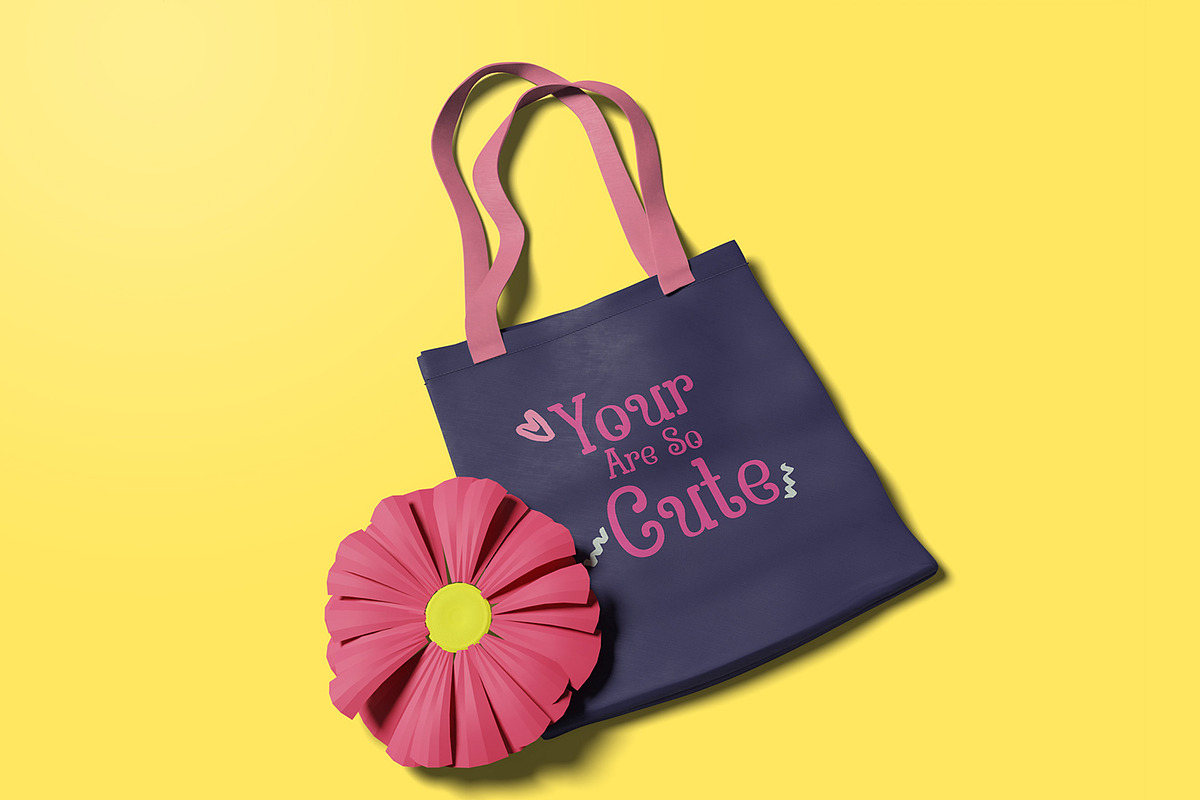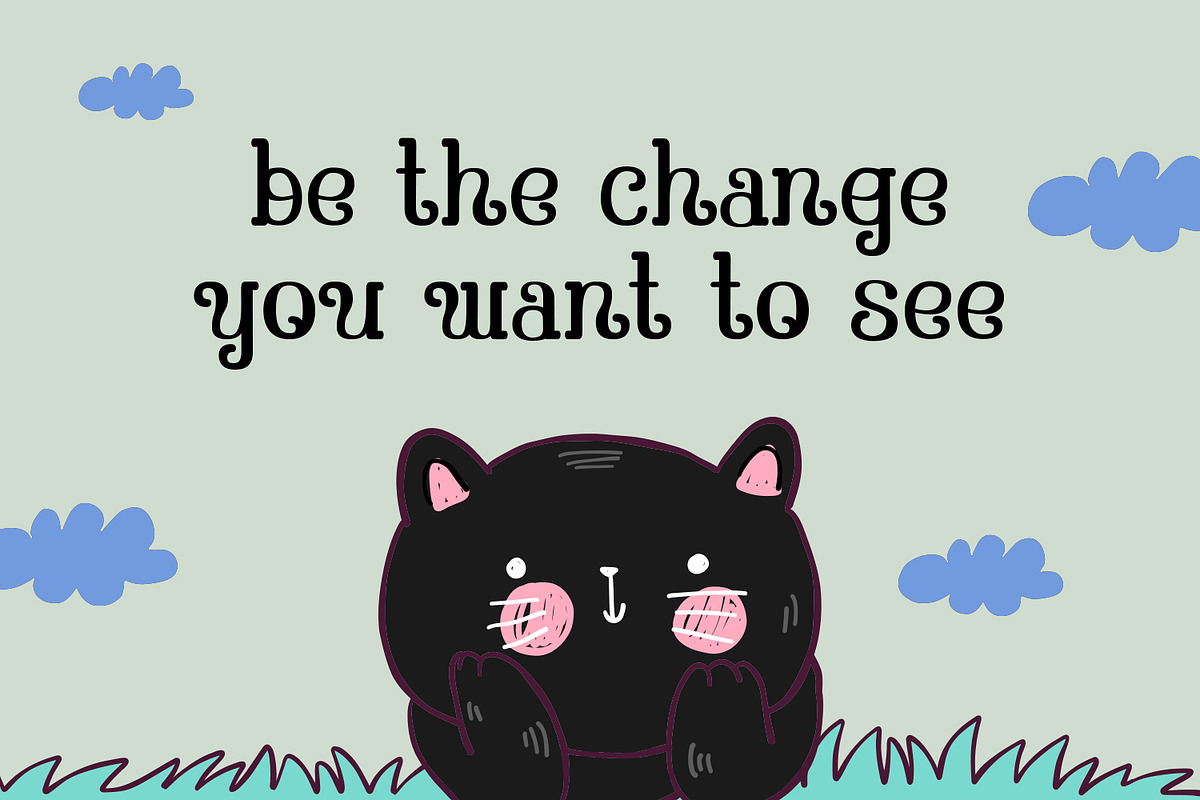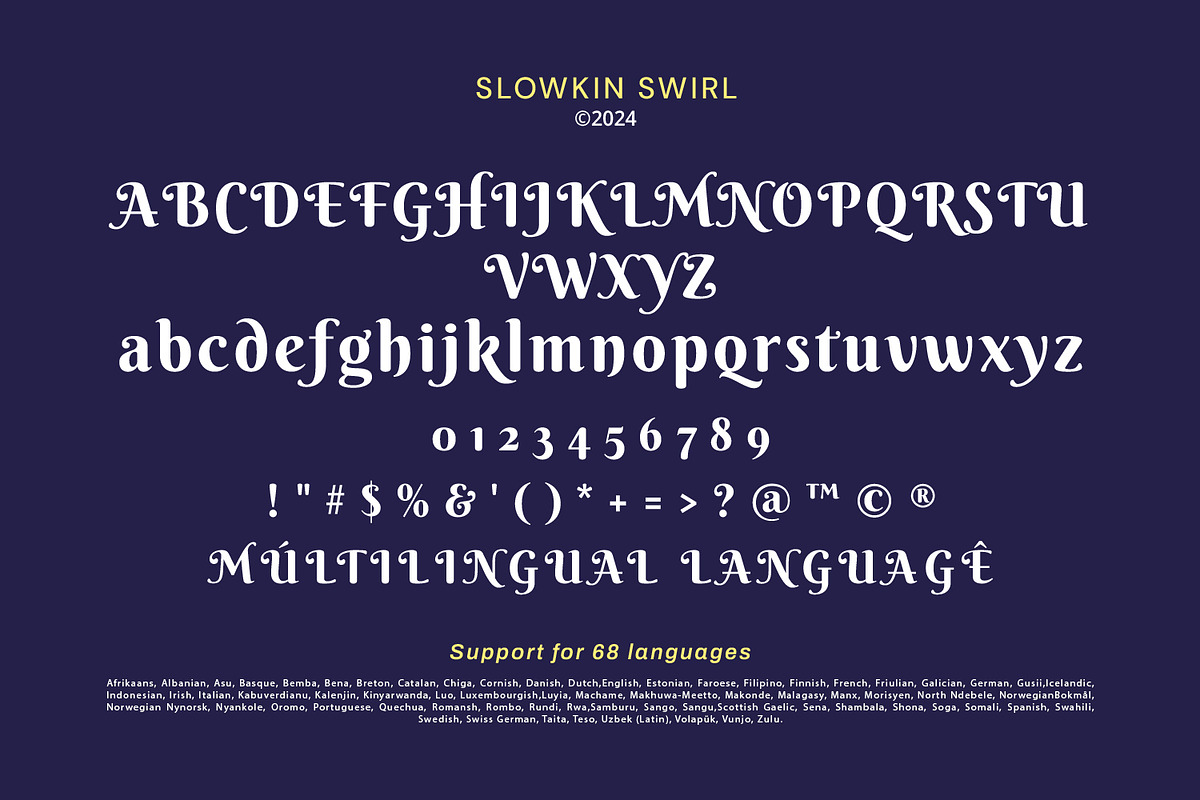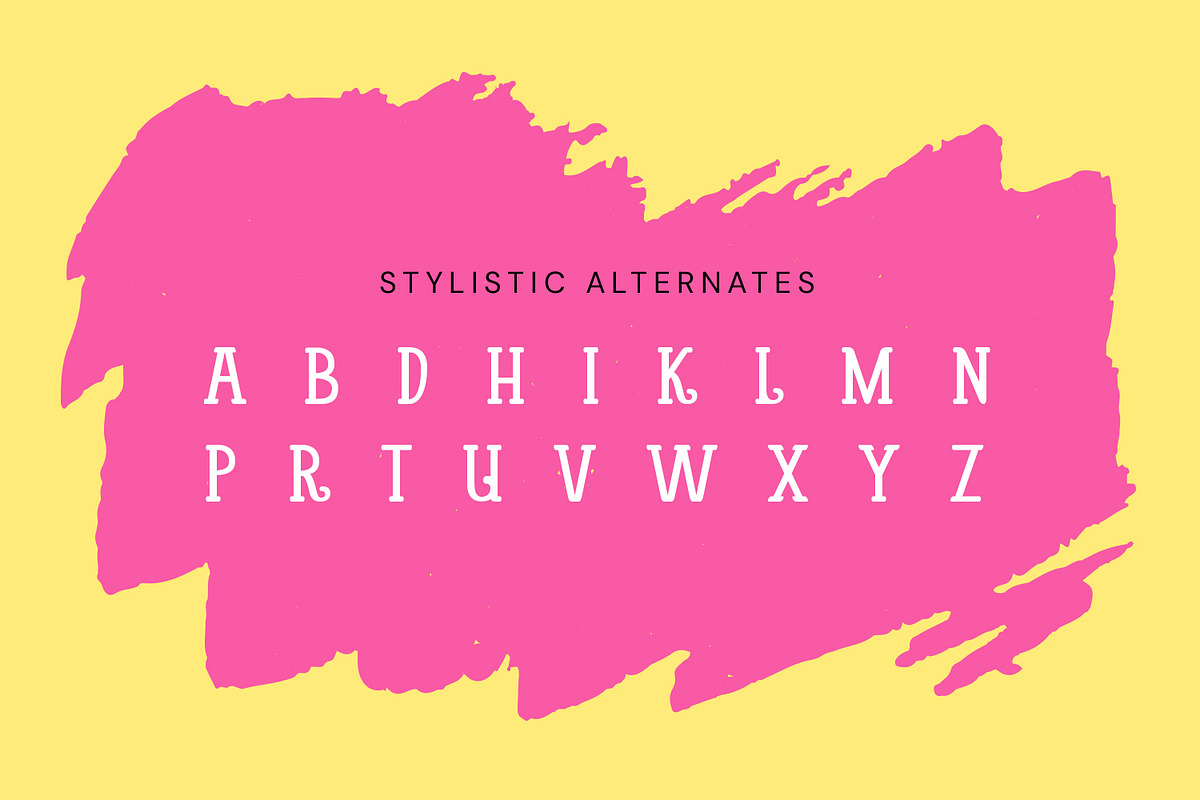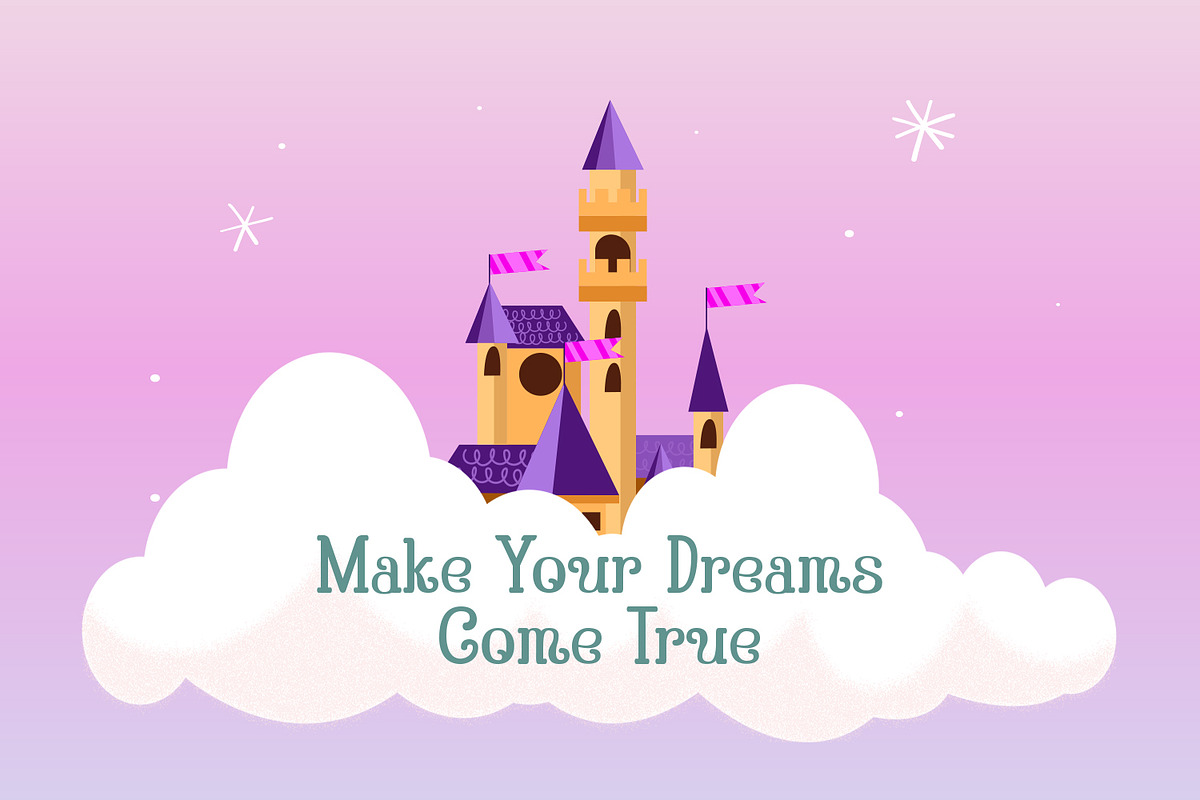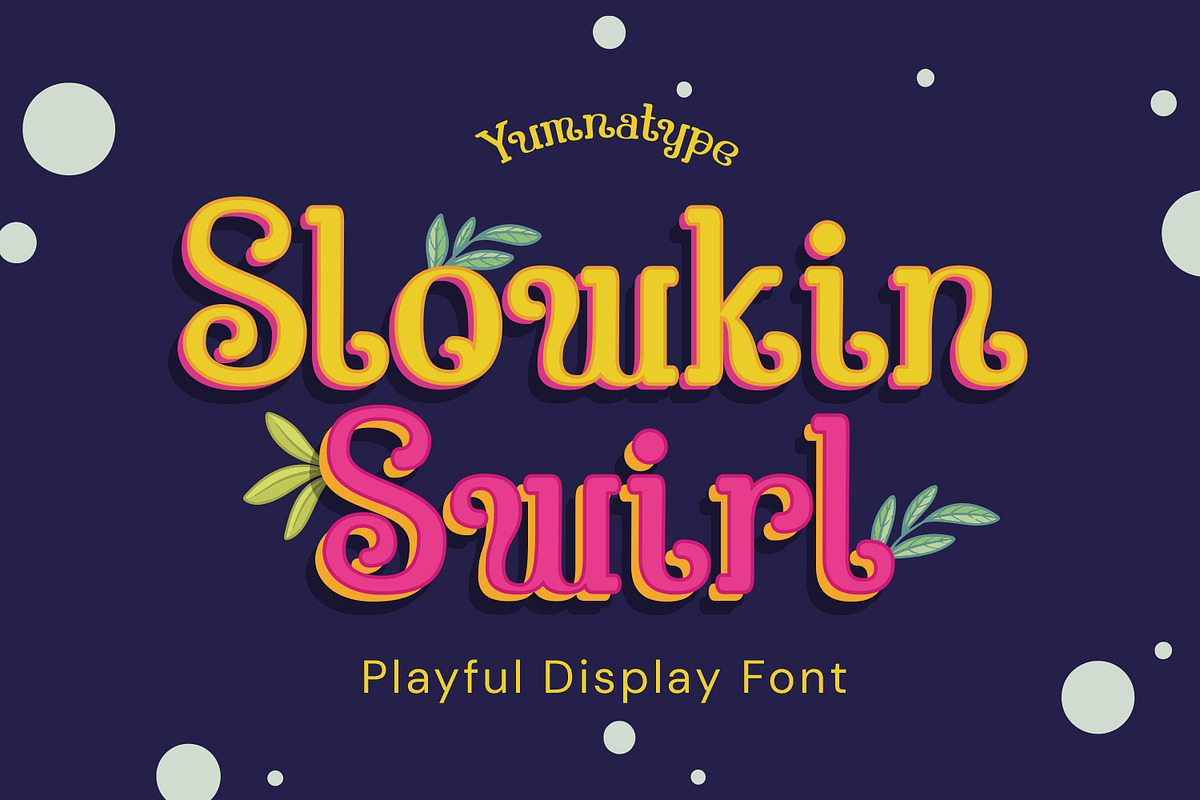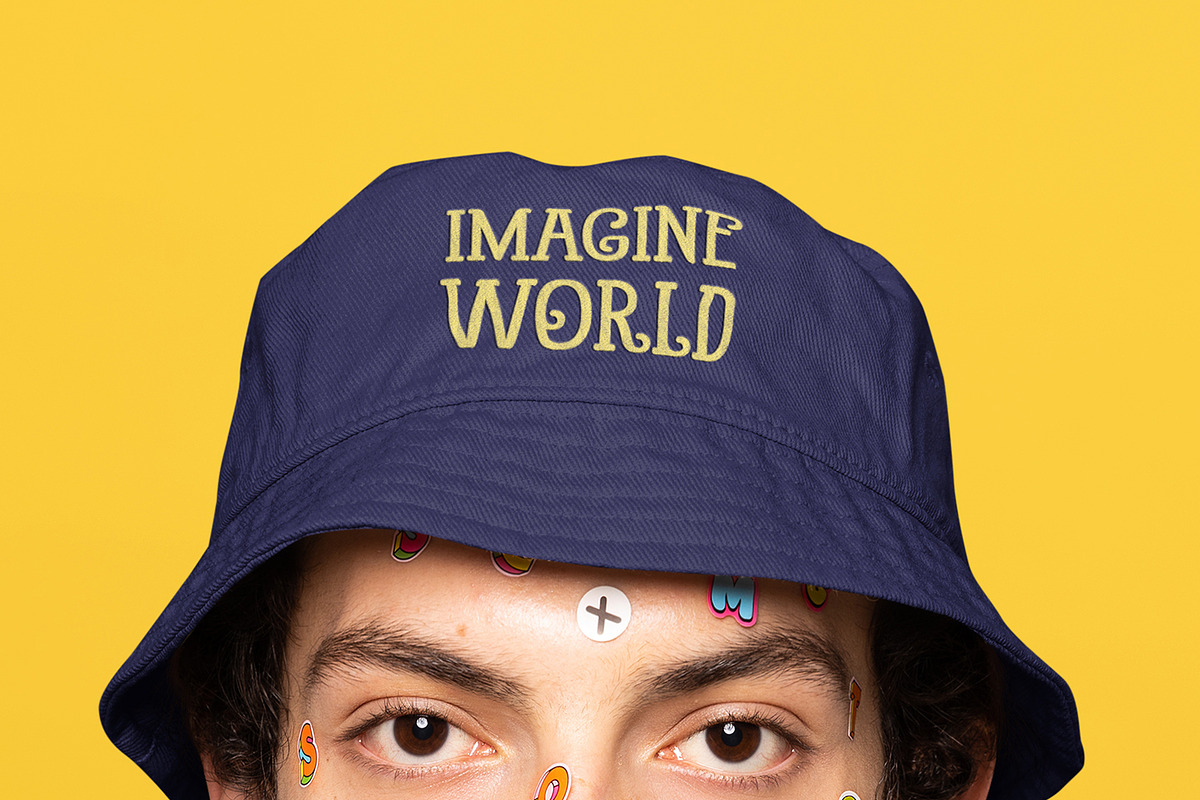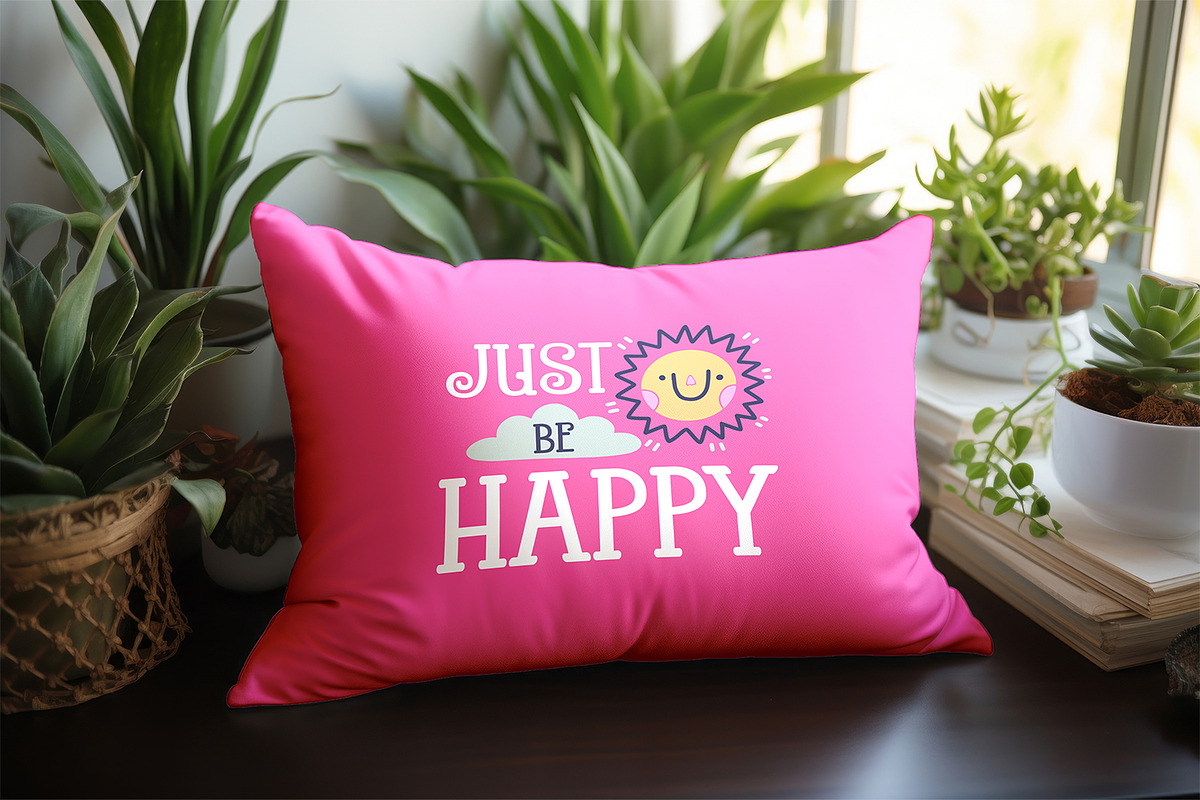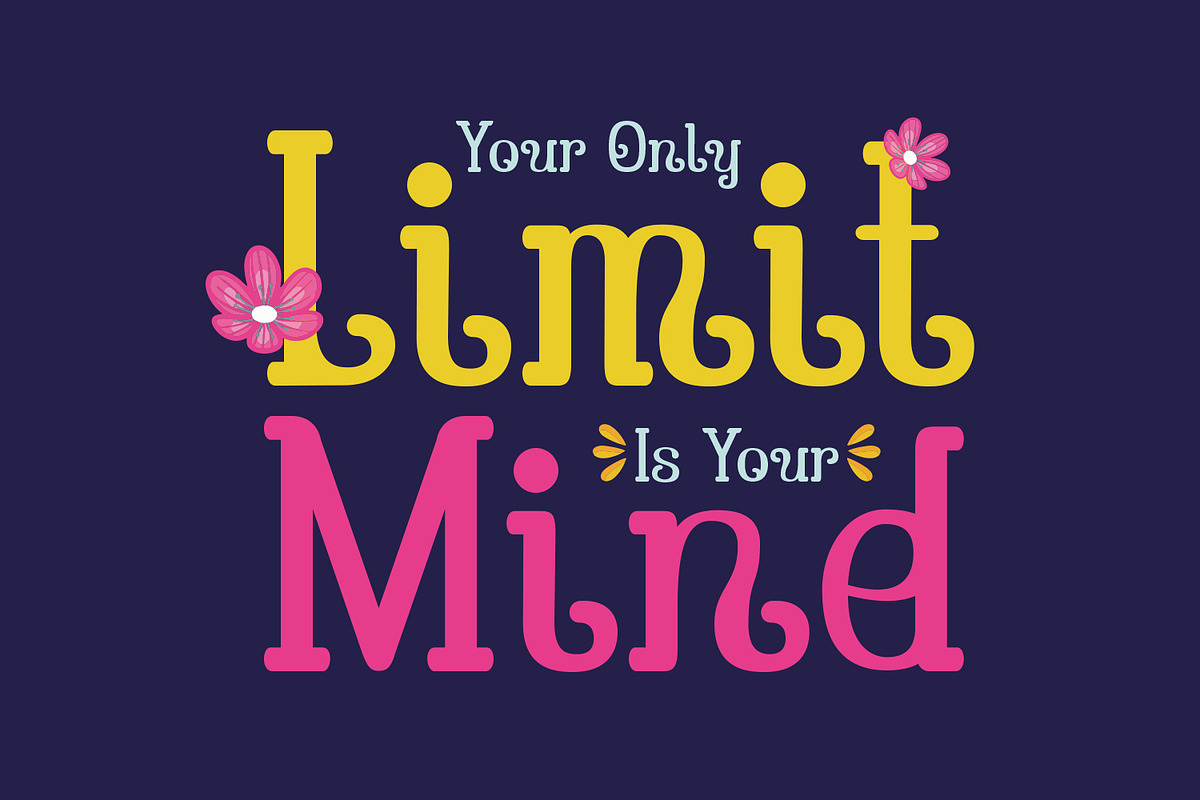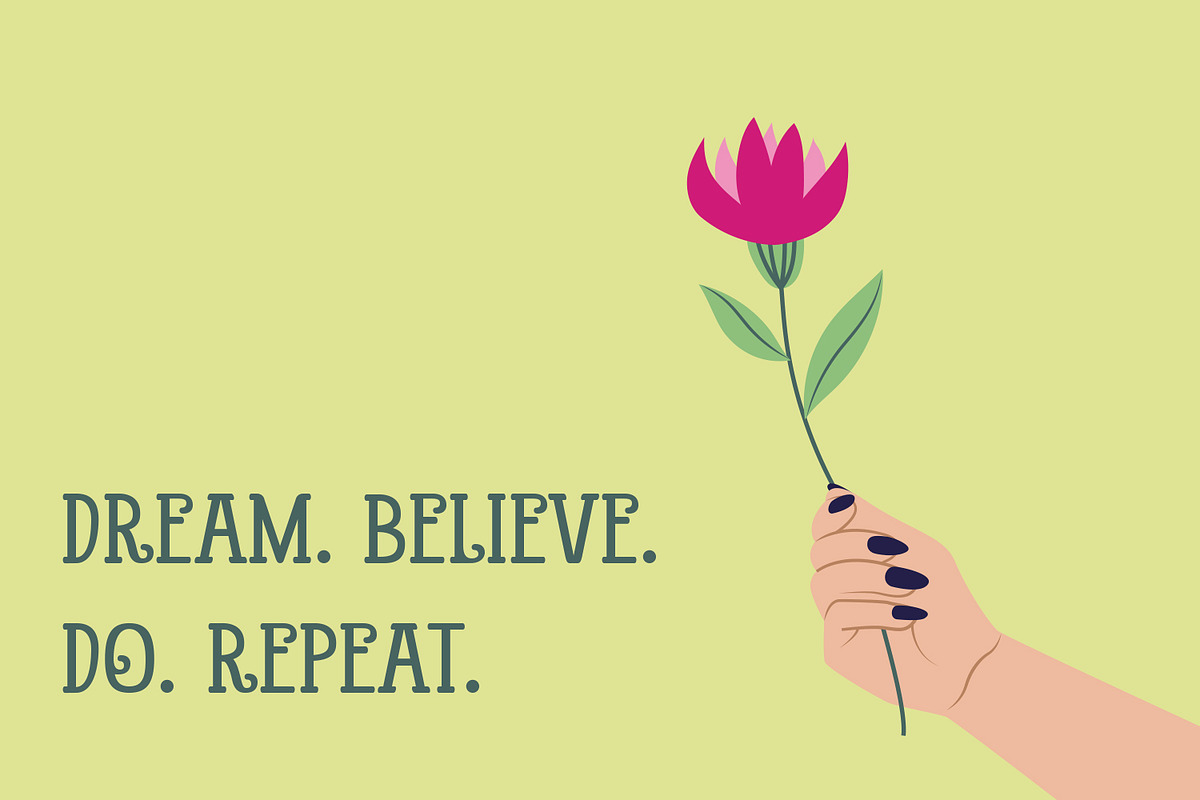
Slowkin Swirl
Slowkin Swirl is a delightful display font designed to bring a sense of playfulness and whimsy to any project. Each character is made in a light weight that ensures readability while maintaining a fun aesthetic. The shapes are predominantly rounded, giving the font a friendly and approachable feel. What sets Slowkin Swirl apart are its distinctive swinging ends, which add a unique, flowing motion to the text. In addition, enjoy the features here.
Slowkin Swirl fits in headlines, logos, posters, flyers, branding materials, print media, editorial layouts, and many more designs. Find out more ways to use this font by taking a look at the font preview.